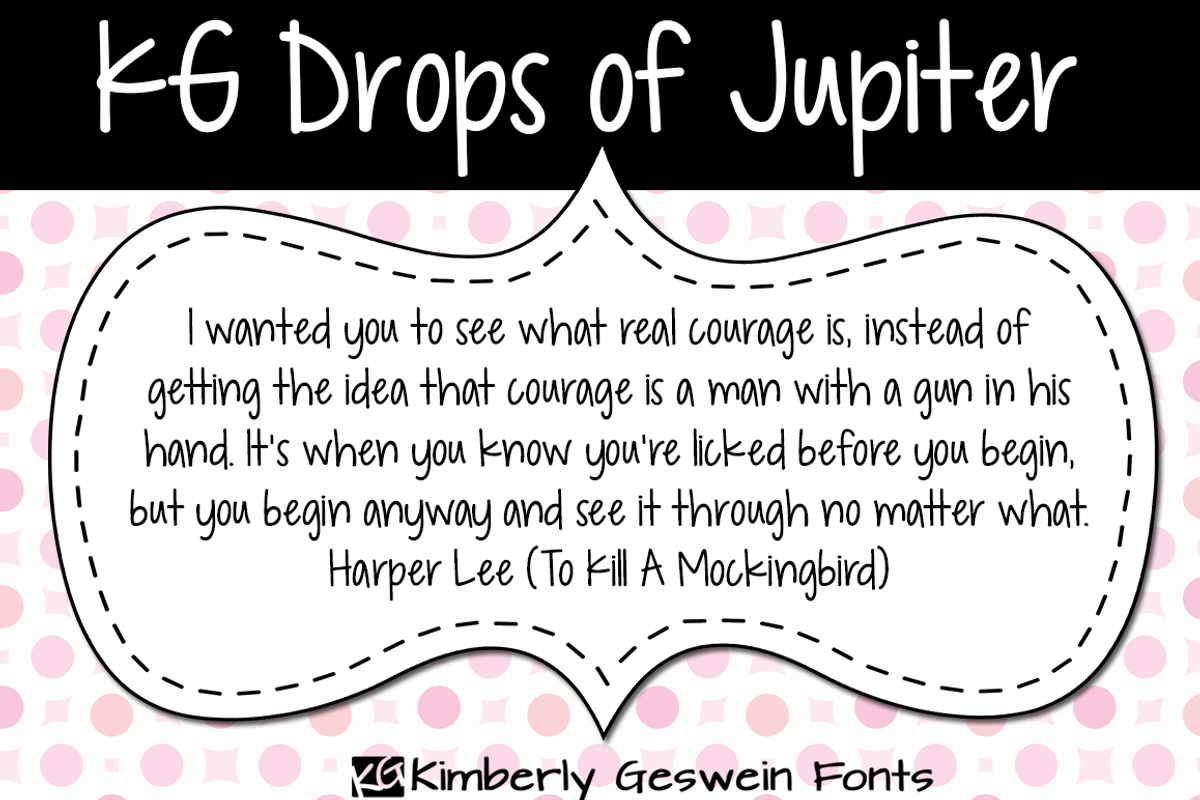
KG Drops of Jupiter Font
KG Drops of Jupiter Font by Kimberly Geswein Fonts is a font selected for branding, posters, packaging, typography.
- Includes enough glyphs to cover most European languages.
- KG Drops of Jupiter Regular
Why KG Drops of Jupiter Font is worth a look
KG Drops of Jupiter Font by Kimberly Geswein Fonts fits naturally into Branding, posters, packaging, typography.